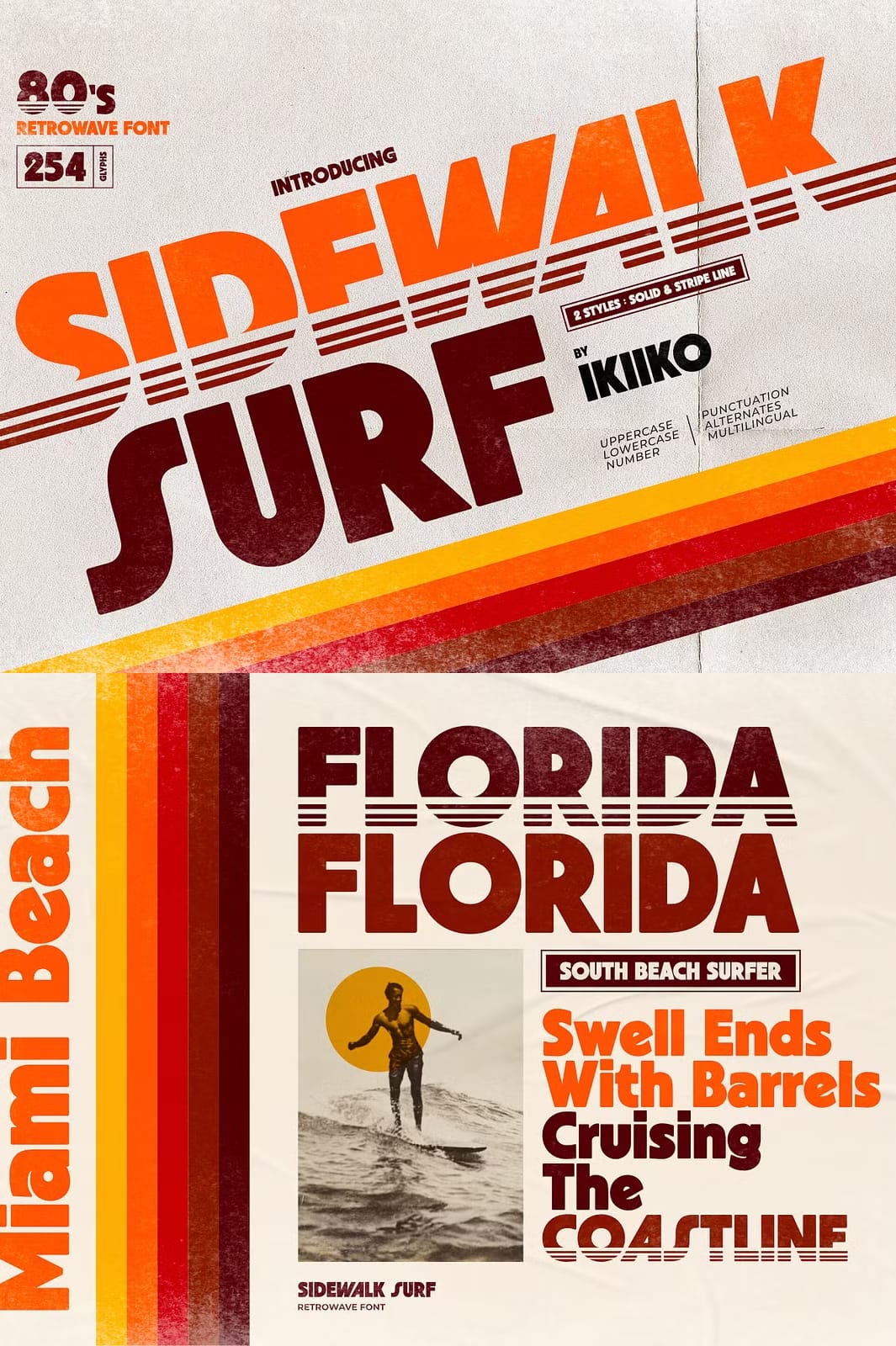
Step into the vibrant world of 1980s nostalgia with Sidewalk Surf, an energetic and bold retrowave font created by ikiiko. Crafted to capture the dynamic spirit of 80s retro culture, Sidewalk Surf brings a striking mix of vintage aesthetics and modern design potential. Its captivating lines and bold forms make it an ideal choice for designers seeking to evoke the electric vibe of neon-lit streets, arcade halls, and synth-driven music scenes in their projects. Whether digital or print, this font commands attention and sets a uniquely cool tone for any creative work.
Distinctive Solid and Stripe Line Styles for Versatile Use
Sidewalk Surf offers two visually distinct styles: Solid and Stripe Line. The Solid version presents a strong, commanding presence that works perfectly for impactful headlines, logos, or branding materials. Alternatively, the Stripe Line version adds a dynamic sense of movement and texture, making your design feel vibrant and energized. Combining these styles or pairing them with contrasting sans-serif fonts can unlock even more creative flexibility, letting you build layered, eye-catching compositions that resonate with the retro aesthetic.
Design Flexibility with Color and Effects
This font thrives when paired with color gradients, neon glows, or other graphic treatments typical of the 80s aesthetic. Designers can experiment freely to amplify the nostalgic feel, whether it’s for poster art, magazine layouts, apparel graphics, packaging design, or stylish text overlays on photographic backgrounds. Sidewalk Surf’s robust style lends itself well to projects that demand both visual flair and readability, making it a dependable choice for diverse design applications.
Comprehensive Language and Symbol Support
Sidewalk Surf includes uppercase and lowercase letters, numerals, punctuation, and alternate characters, providing full typographic functionality. Its multilingual support broadens accessibility, allowing global use with confidence. The font comes in widely compatible TTF and OTF formats, ensuring smooth integration on both PC and Mac platforms. This guarantees ease of use for designers working across various software environments without compatibility concerns.
Perfect for Authentic Retro Style Projects
Use Sidewalk Surf to instantly communicate retro cool in your design projects. It excels in retro-inspired poster designs, vintage magazine layouts, trendy apparel graphics, unique packaging, inspirational quote art, and much more. Its bold presence and adaptable styles make it a go-to choice for anyone looking to infuse their work with that unmistakable 80s flair, while maintaining clarity and professionalism for commercial and creative outputs alike.